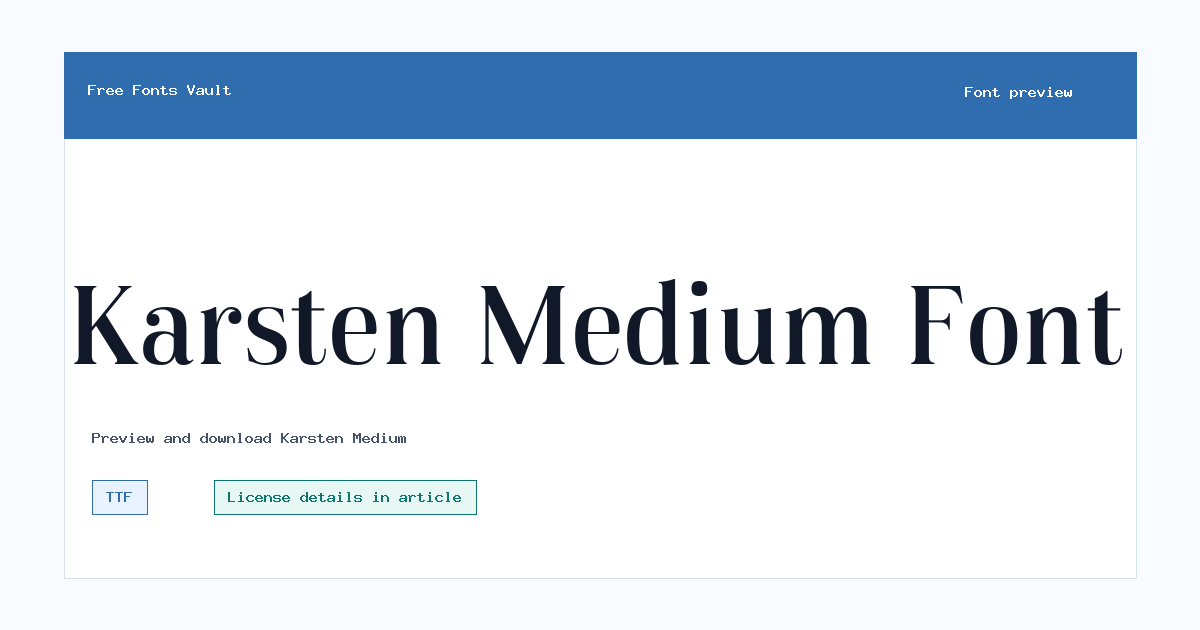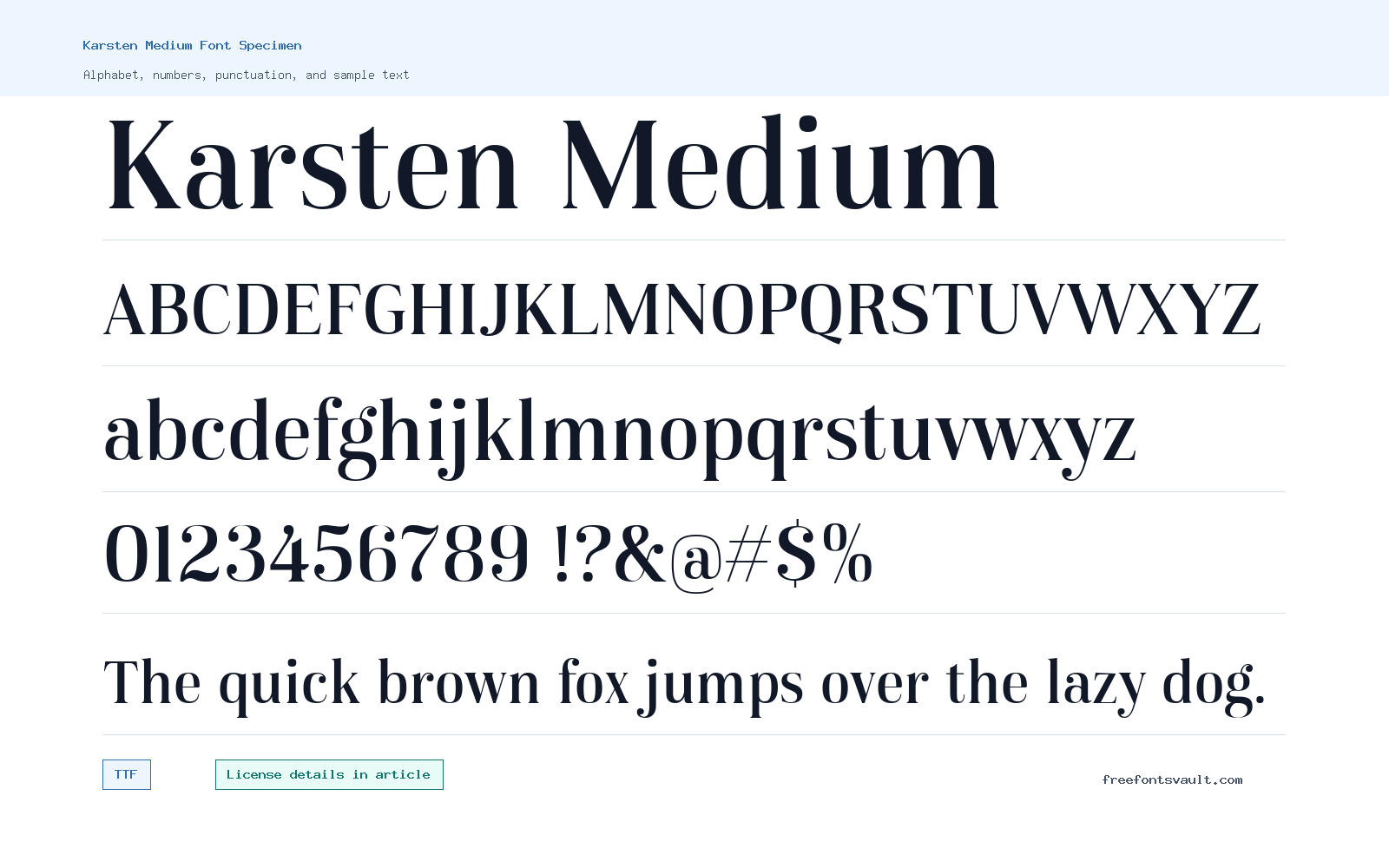
Karsten Medium
- Designer Nasir Udin
- Foundry Nasir Udin Studio
Karsten Medium font.
Karsten Medium is a medium-weight serif font with a polished editorial feel. Its balanced weight makes it useful for testing headlines, titles, packaging text, and short reading samples where a classic serif voice is needed.
About Karsten Medium
Karsten is a serif family designed by Nasir Udin and published by Nasir Udin Studio. Fontspring describes the wider family as having twenty-seven styles, with weights from Thin to Black and matching italics. The Medium style sits near the center of that range, giving text more presence than a light cut without the heaviness of bold display styles.
Use Karsten Medium when you want a refined serif for short, controlled settings: magazine-style headings, book-cover mockups, brand presentation tests, labels, invitations, or packaging concepts. It can also work for short paragraphs, but visitors should preview their own wording first, especially at small sizes. Try uppercase titles, mixed-case headings, numbers, and punctuation in the preview box to see whether the spacing and tone fit your project.
- Serif design suited to titles, editorial layouts, branding tests, packaging, and short display text
- Editorial headlines, title pages, posters, and magazine-style layouts
- Branding tests, packaging mockups, invitations, labels, and refined display typography
Karsten is credited to Nasir Udin and associated with Nasir Udin Studio.
For best results, test Karsten Medium with the exact words you plan to use. It should be strongest in short text where the serif details can show clearly. Pair it with a simple sans serif for captions, navigation, or long support copy so the layout stays readable. Karsten Medium is strongest when the layout needs a serif with enough weight for headlines but less heaviness than a bold cut. Test it in title case, all caps, and short paragraphs because medium serif spacing can change quickly between editorial and branding settings. Pair it with a restrained sans serif when you need product details, interface text, or longer explanations to stay easy to scan.
What weight is Karsten Medium?
Karsten Medium is listed as weight 500 with a normal upright style.
What kind of projects suit Karsten Medium?
It suits refined short text such as headlines, covers, packaging mockups, labels, invitations, and brand presentation tests.
Who designed Karsten?
Karsten is credited to Nasir Udin and published by Nasir Udin Studio.